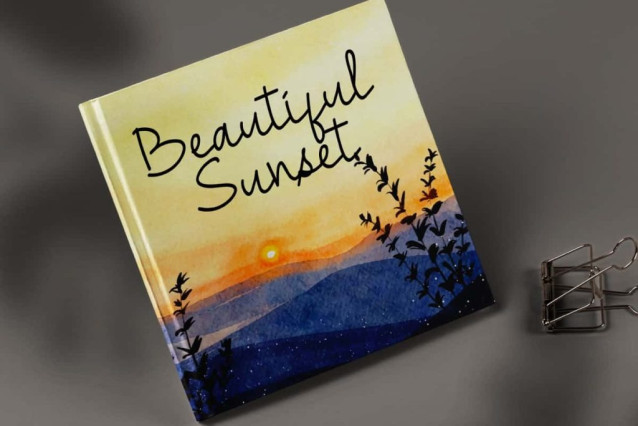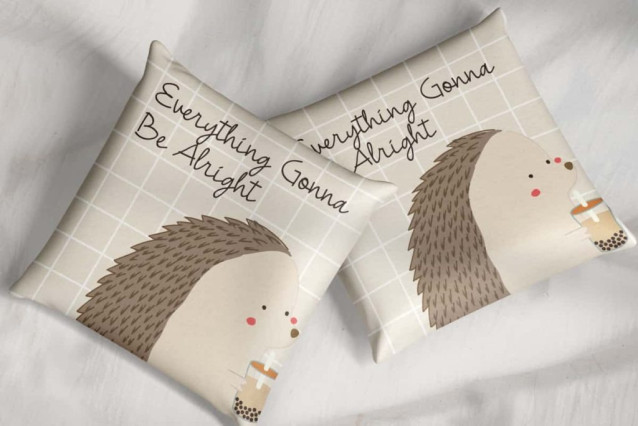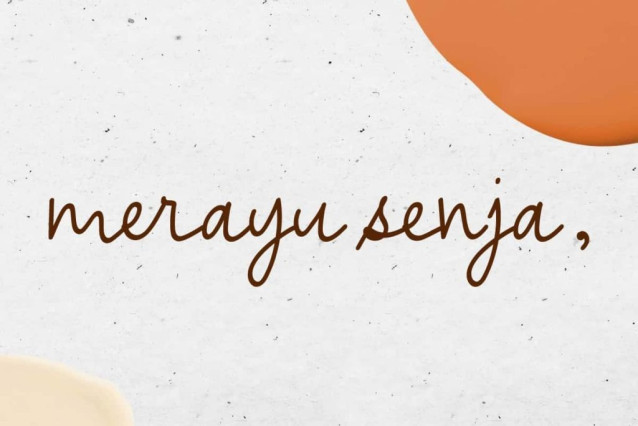
Merayu Senja Font
Merayu Senja Font is a classic teenager writing handwriting font with an elegant signature style. Equipped with ligatures, the variations of combined letters that have been created fit together to add artistic value and beauty to the font. Perfect for banners, blogs, brochure, covers, flyer, headers, logos, poster, quotes, screen printing, stationery, title, watermarks, website, and more.
Merayu Senja Font includes a complete set of Basic Uppercase and Lowercase Characters, Numbers, Punctuation, Symbols, and Ligatures. Presenting a casual monoline handwriting that is made more refined and stylish for both formal and informal purposes. This font is suitable for accessories and gifts, author, craft, graphic design, home furniture, photography, spa salon, writer, yoga, etc.